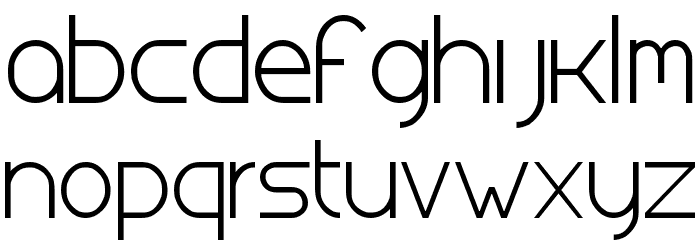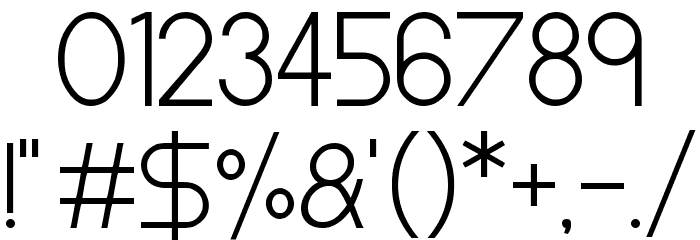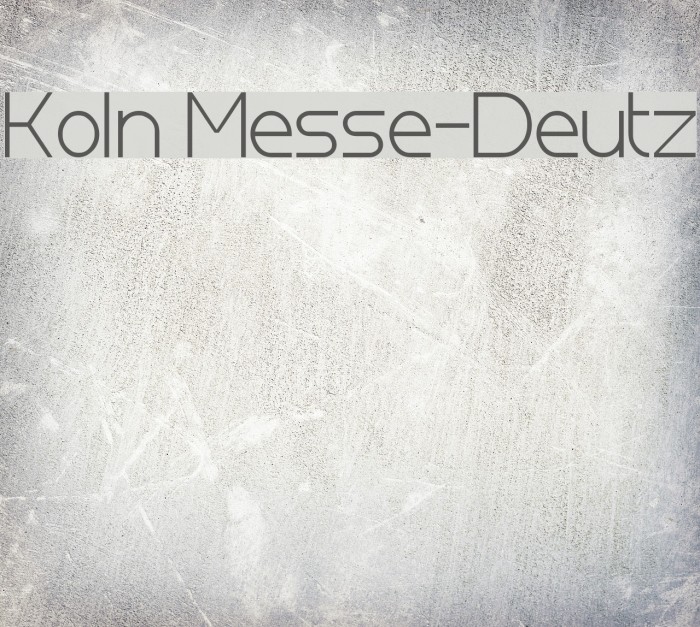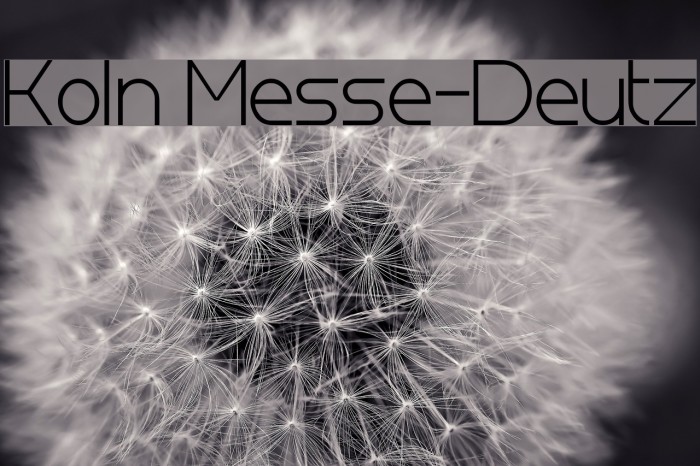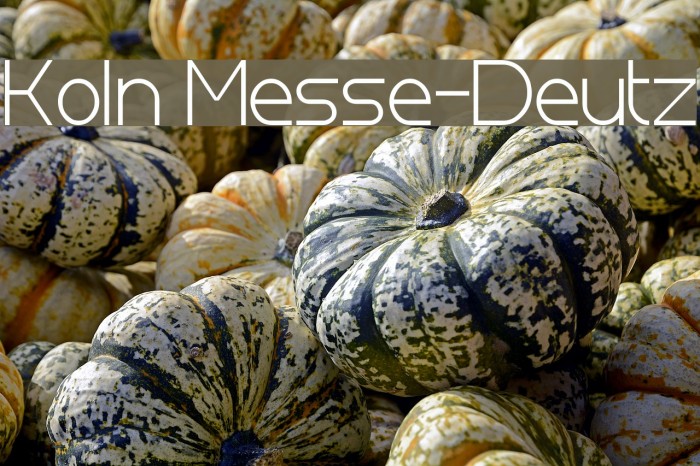
Koln Messe-Deutz Font
This font features a clean, geometric design with a modern aesthetic. The characters are constructed with uniform line weights, giving it a sleek and contemporary look. The uppercase letters are tall and slightly condensed, while the lowercase letters maintain a consistent height, enhancing readability. The numerals are proportionate and align well with the overall style, making them suitable for various applications. The special characters are designed to complement the alphabet, maintaining the same geometric precision. This font's minimalist approach makes it versatile for both digital and print media.
A modern, geometric sans-serif font with clean lines and uniform weight.
- Proposed Projects: Ideal for branding, web design, advertising, and editorial layouts.